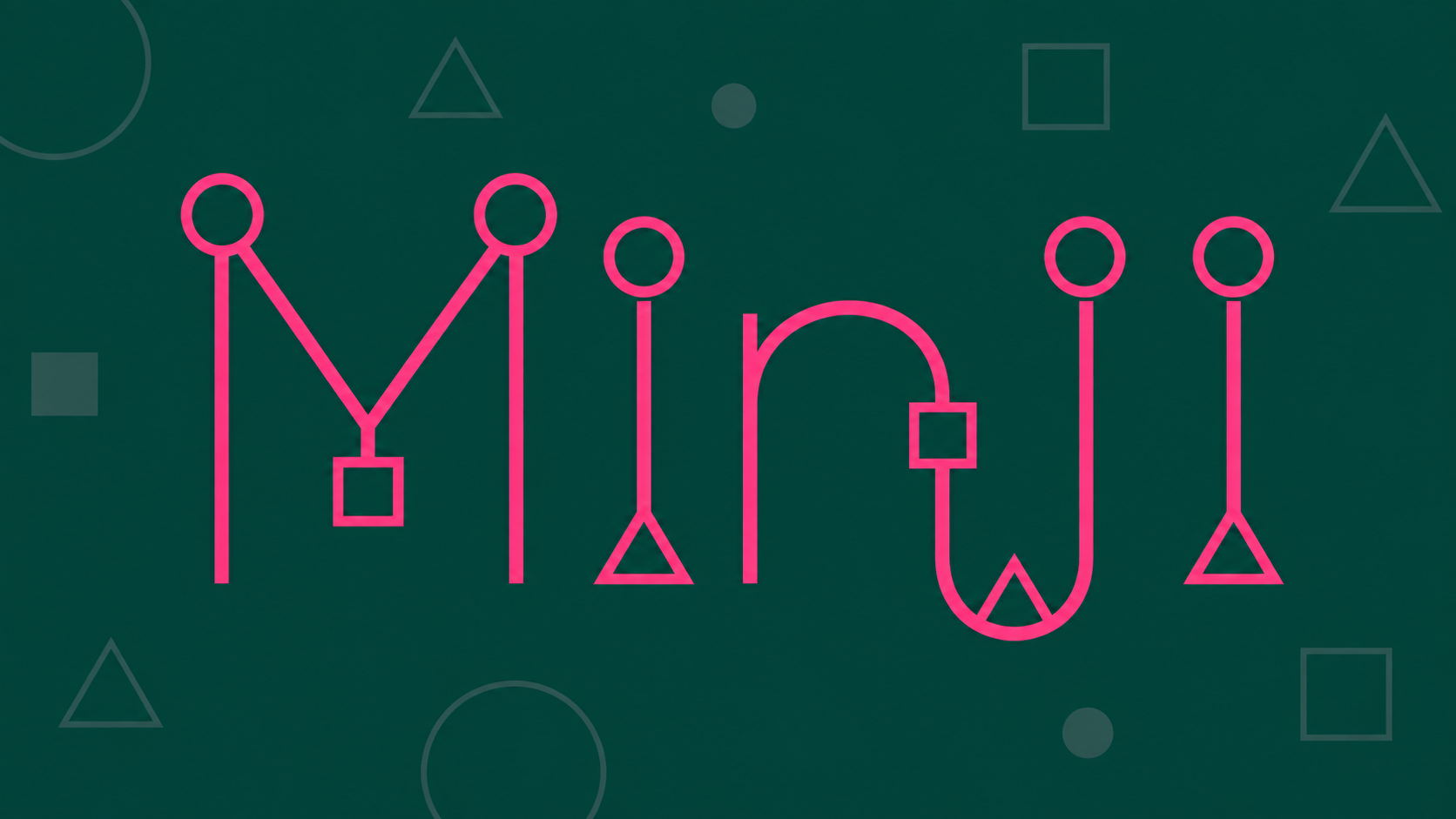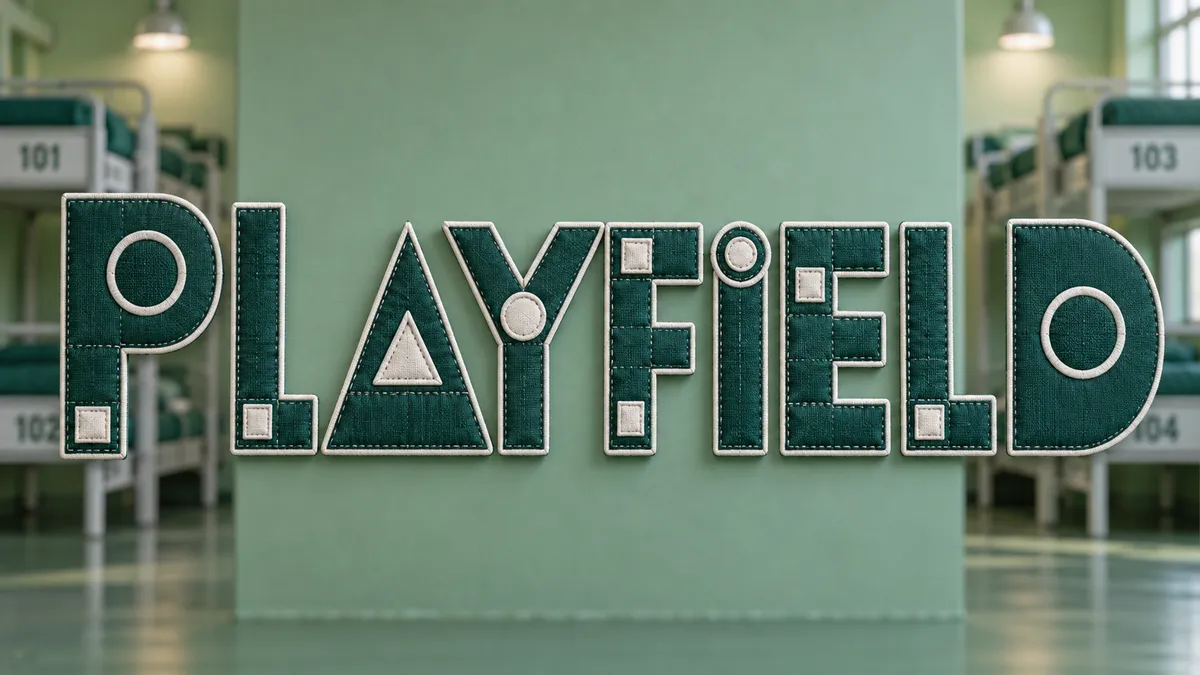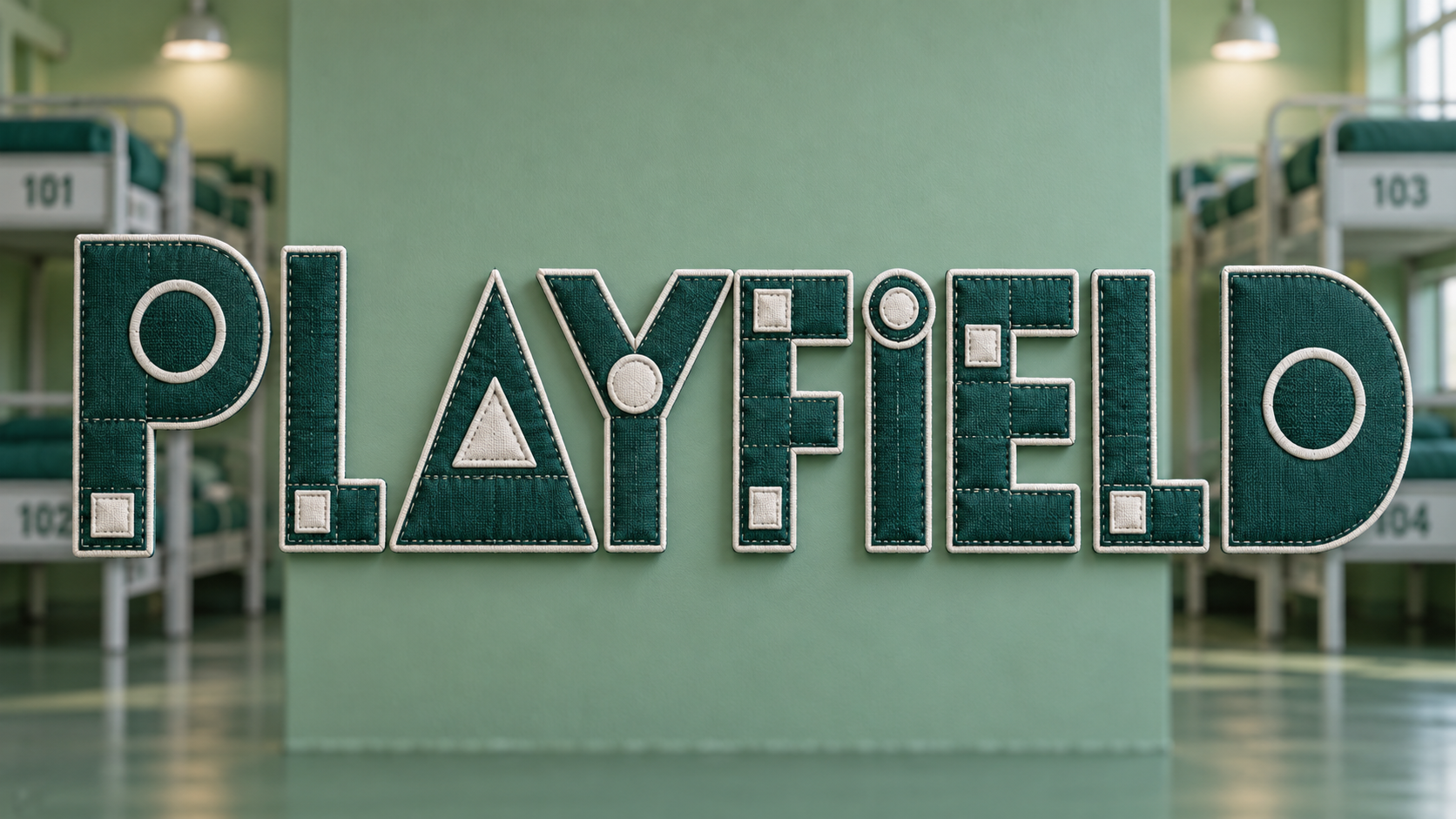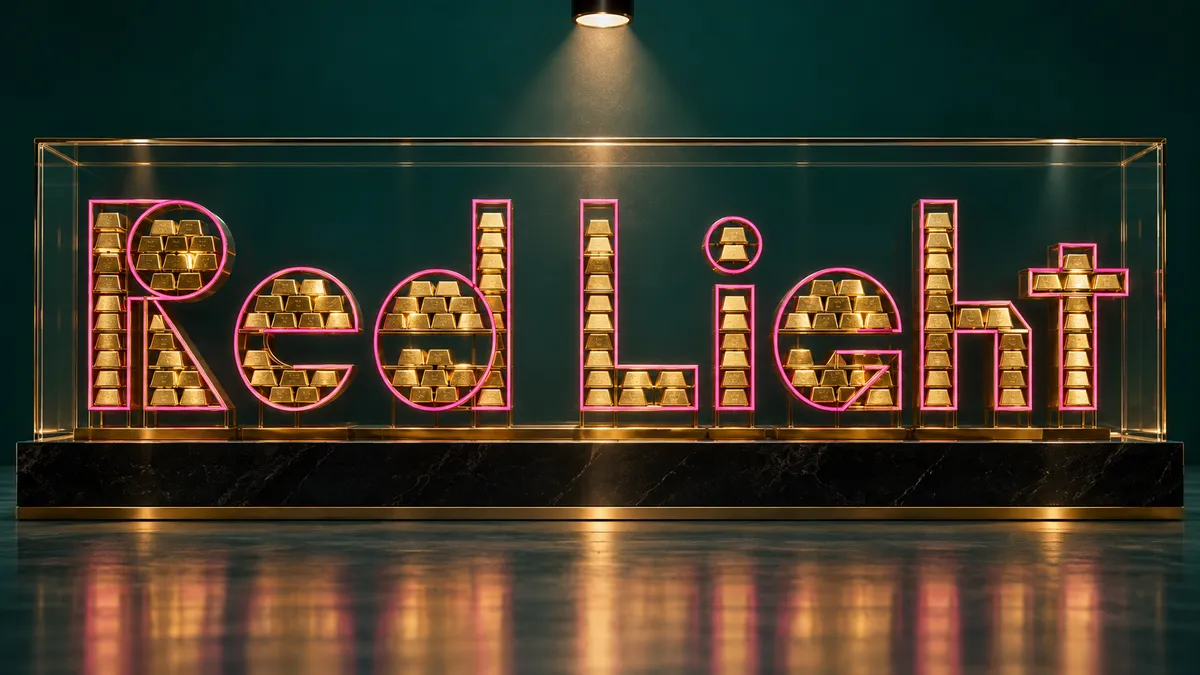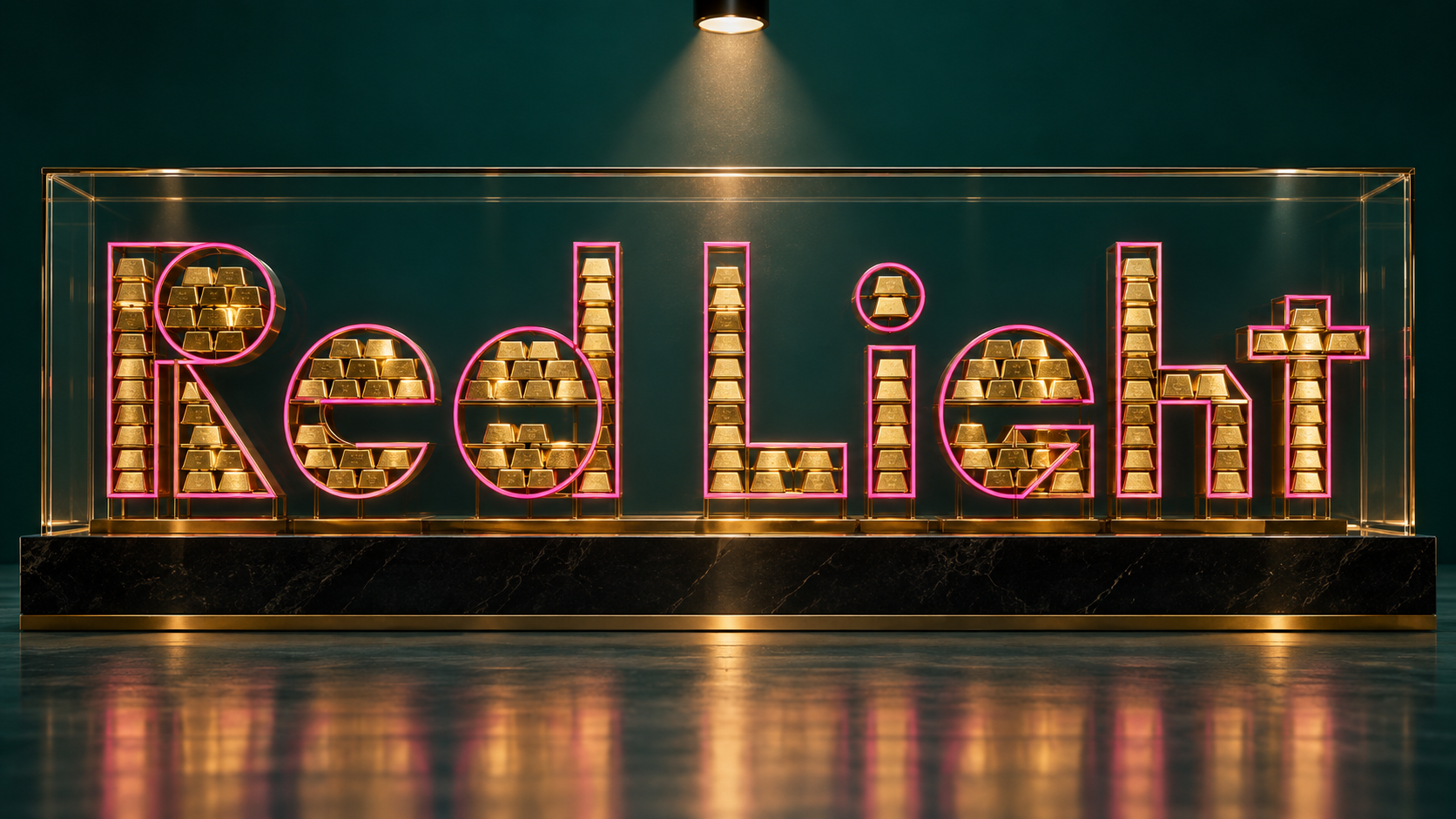
Squid Game Font Generator
Type your name, get thin pink geometric letters built from circles, triangles and squares. Free HD PNG. Fan-made, not affiliated.
clean hot pink geometric letters with circle, triangle, and square counters, flat and precise, stark contrast
The Squid Game font that trended worldwide is built from a simple idea: thin, geometric letterforms whose strokes are replaced by circles, triangles, and squares, set in hot pink against dark teal-green, with the eerie calm of a playground rule sheet. There is no official public download of the series typeface; the fan-made lookalike most people install is "Game Of Squids" from dafont. Fontique does not distribute that file or reproduce the series logo. Instead our AI renders your own words as a finished image in an original design inspired by that geometric visual language, so you skip installing anything and go straight to a PNG.
Presets pull from the mood of the setting. Pink Shapes is the clean geometric base look, Teal Tracksuit adds a numbered-uniform texture, Piggy Gold renders the letters in glass-cased gold, Honeycomb Candy presses them into brittle amber sugar, and Guard Mask paints them glossy black with a single shape stamped on each letter.
The series title uses custom geometric lettering rather than a retail typeface, so there is no official file to download. Fans usually install the free lookalike "Game Of Squids" from dafont for documents. If you only need a title, name card, or poster graphic, this generator gives you a finished PNG with the pink shapes already in place, with no font to install.
Yes. Type something like a name followed by a three-digit number and the Teal Tracksuit preset will treat it as a uniform patch. Keep the total under four words so the thin geometric letters remain large and readable.